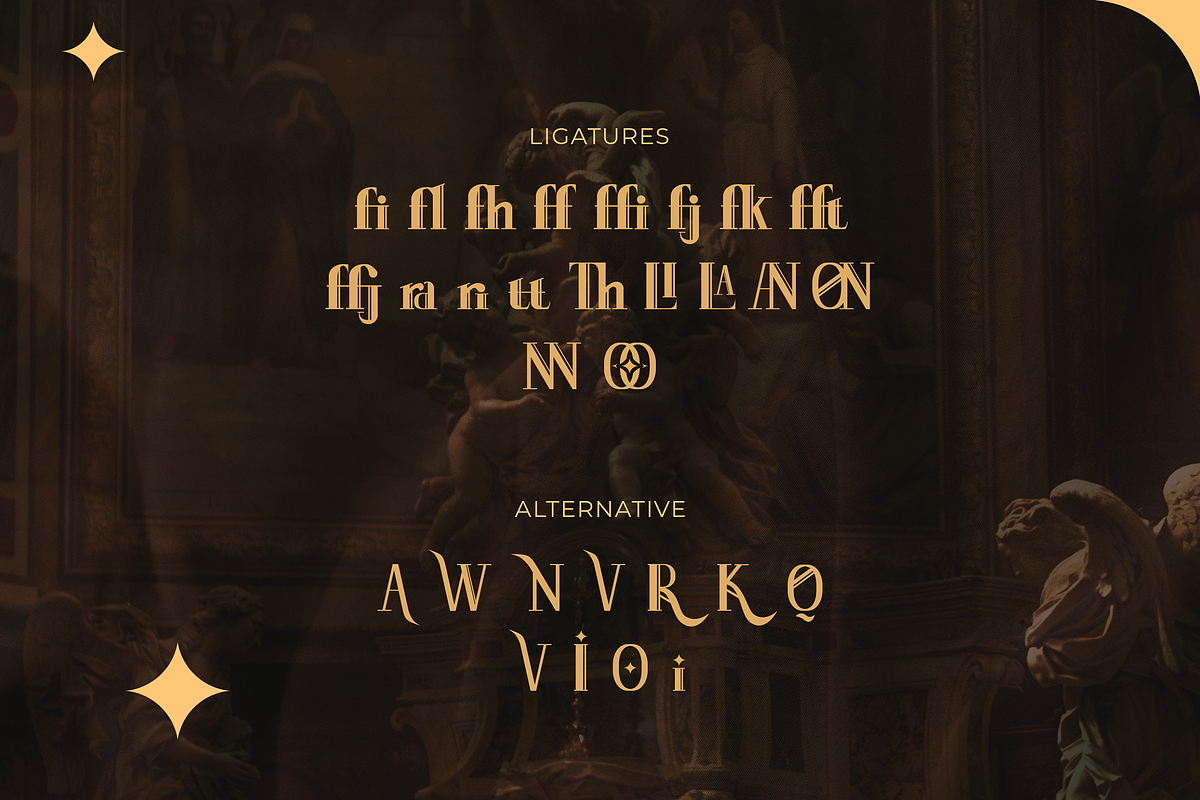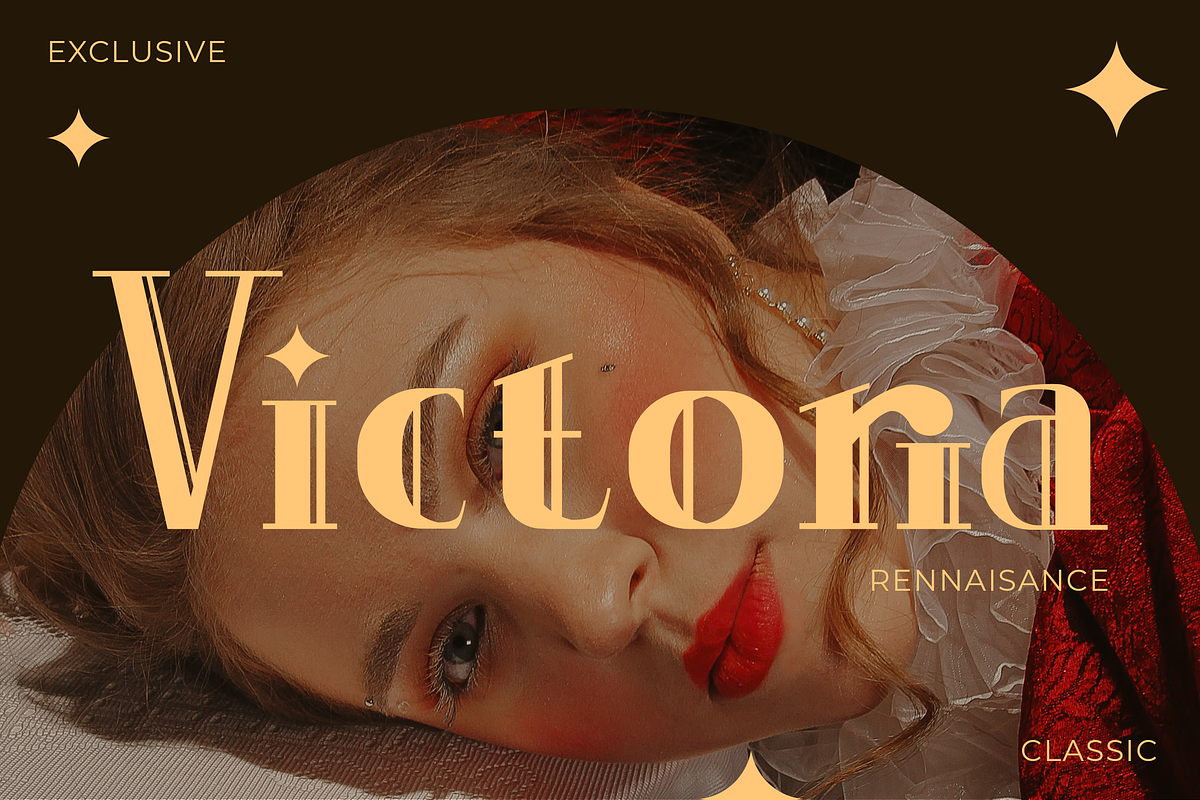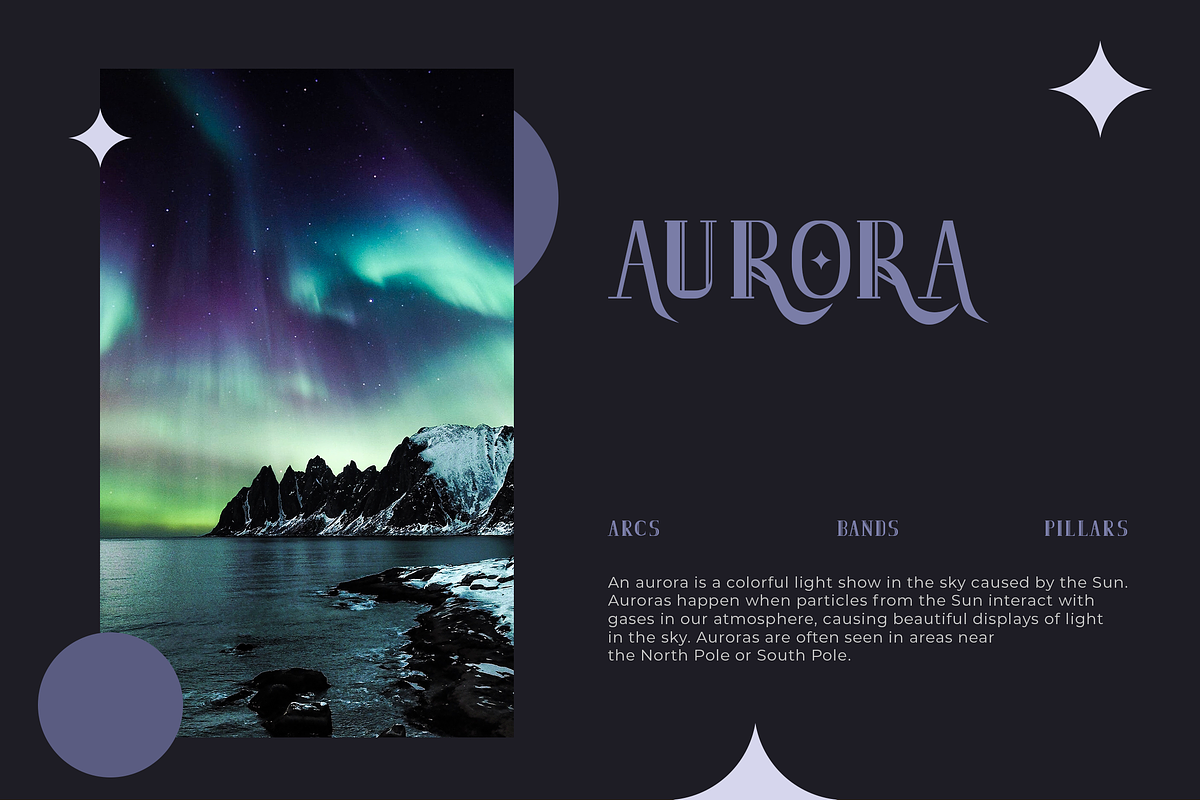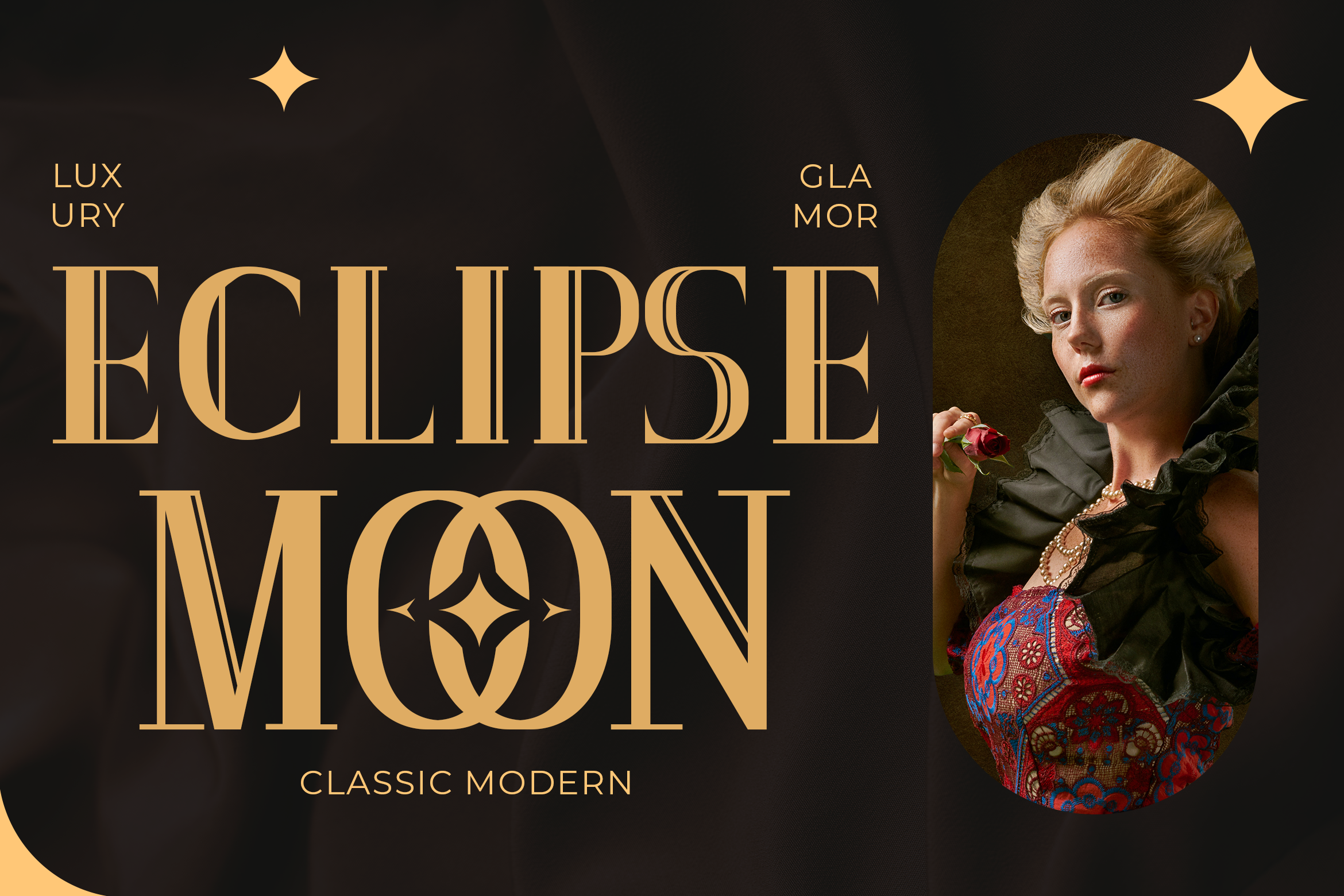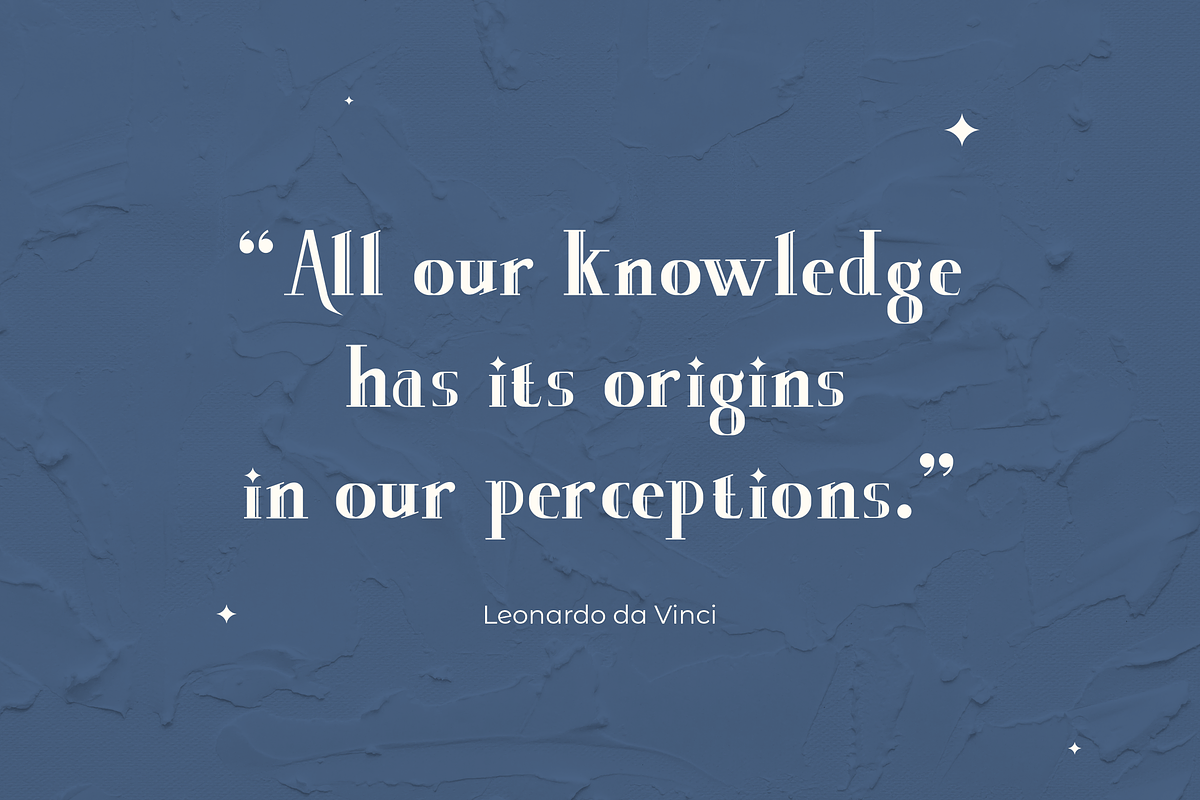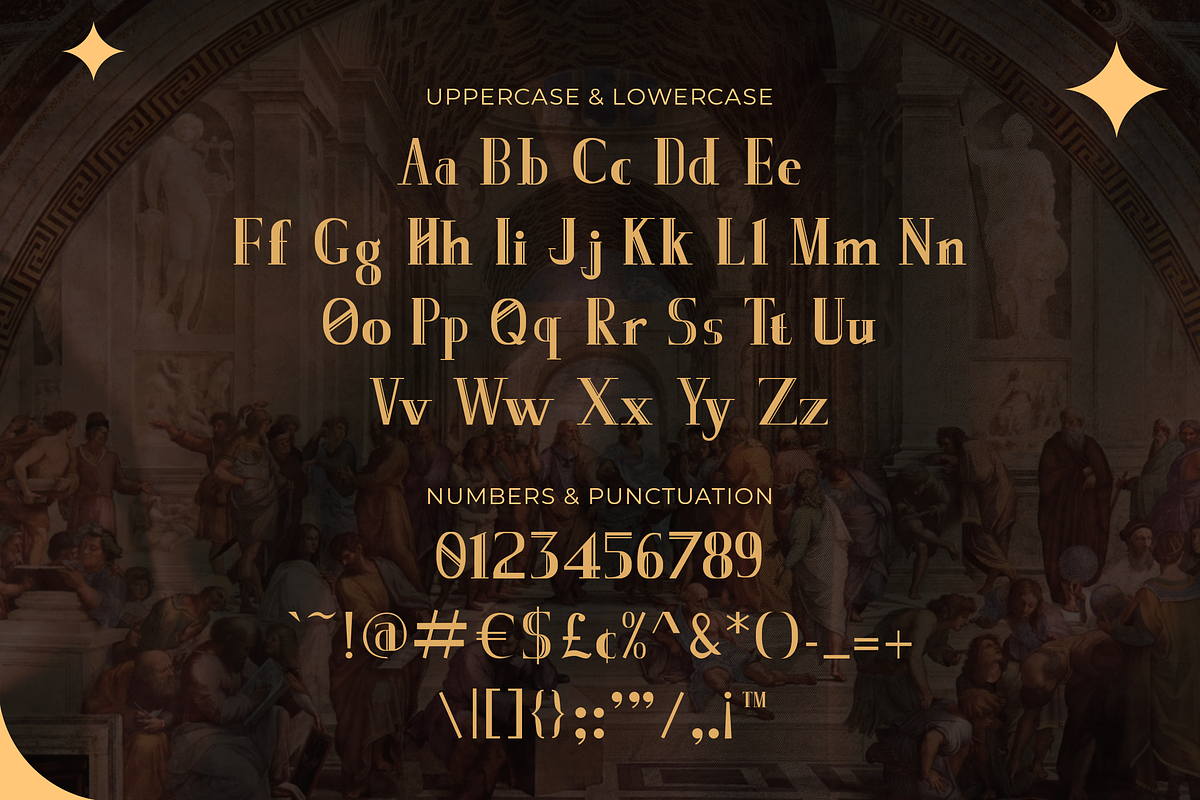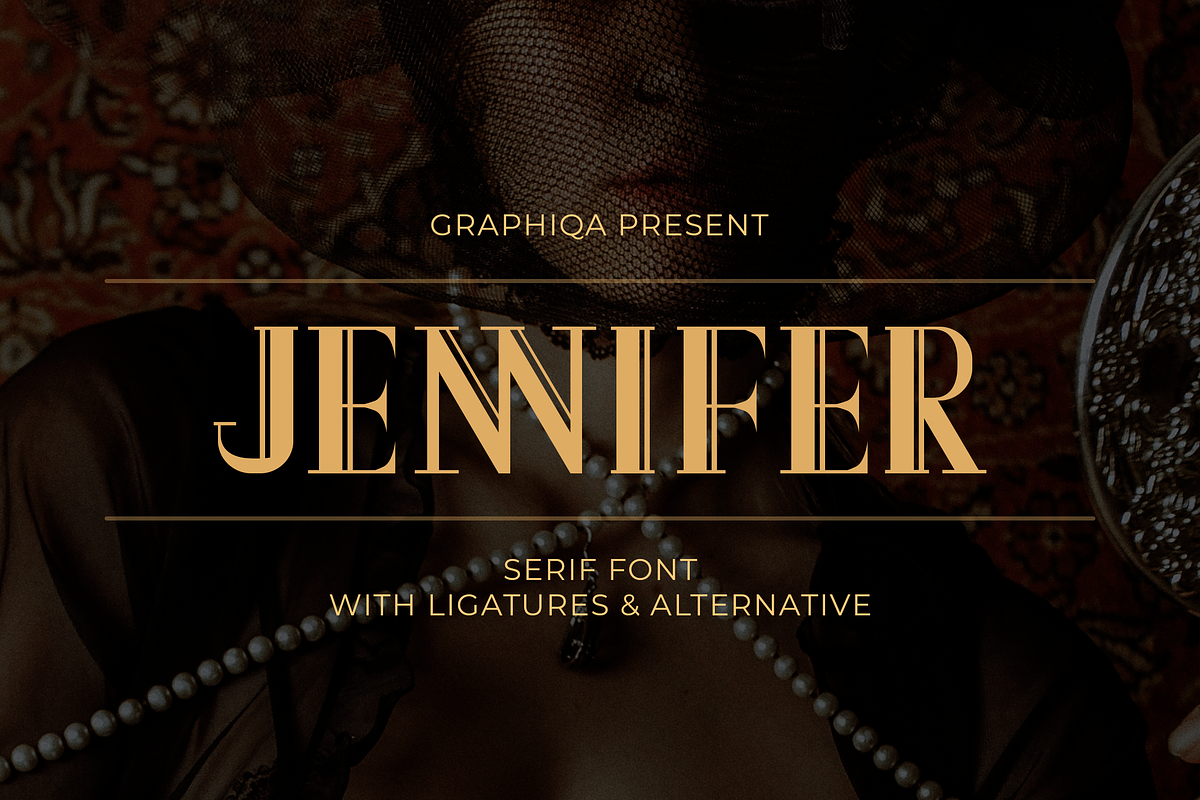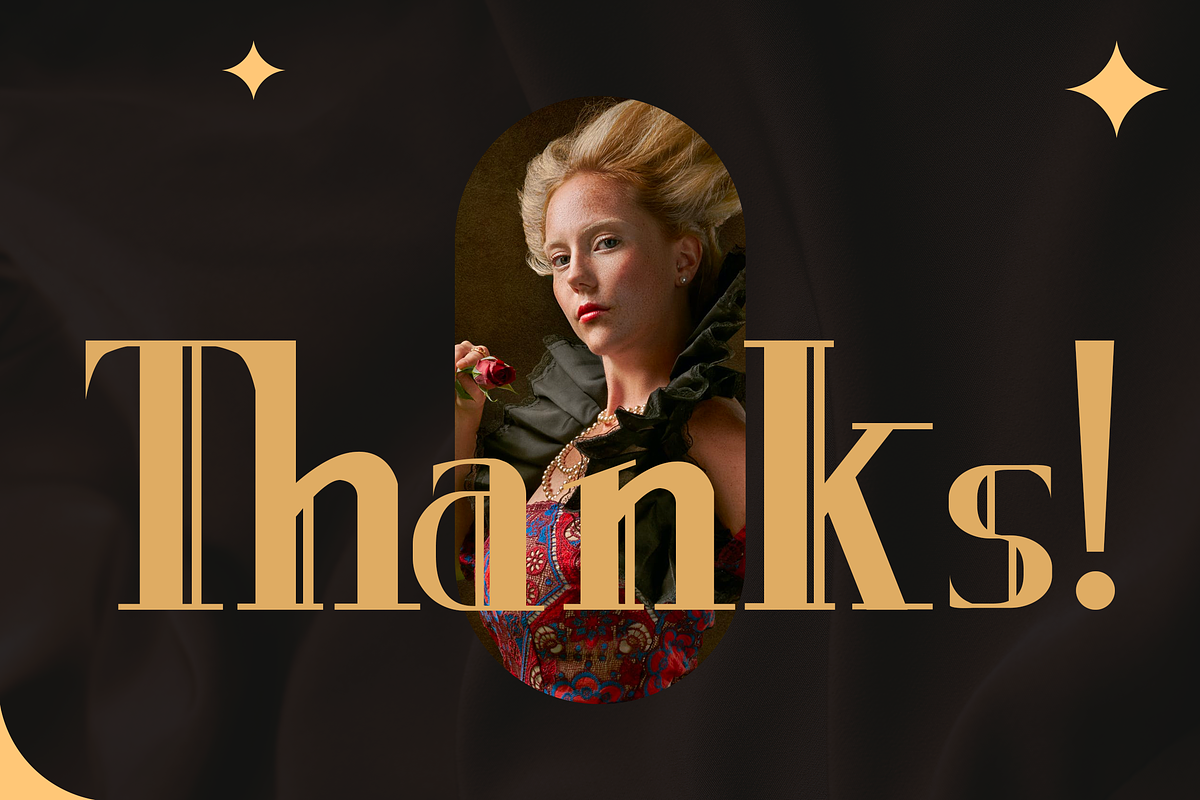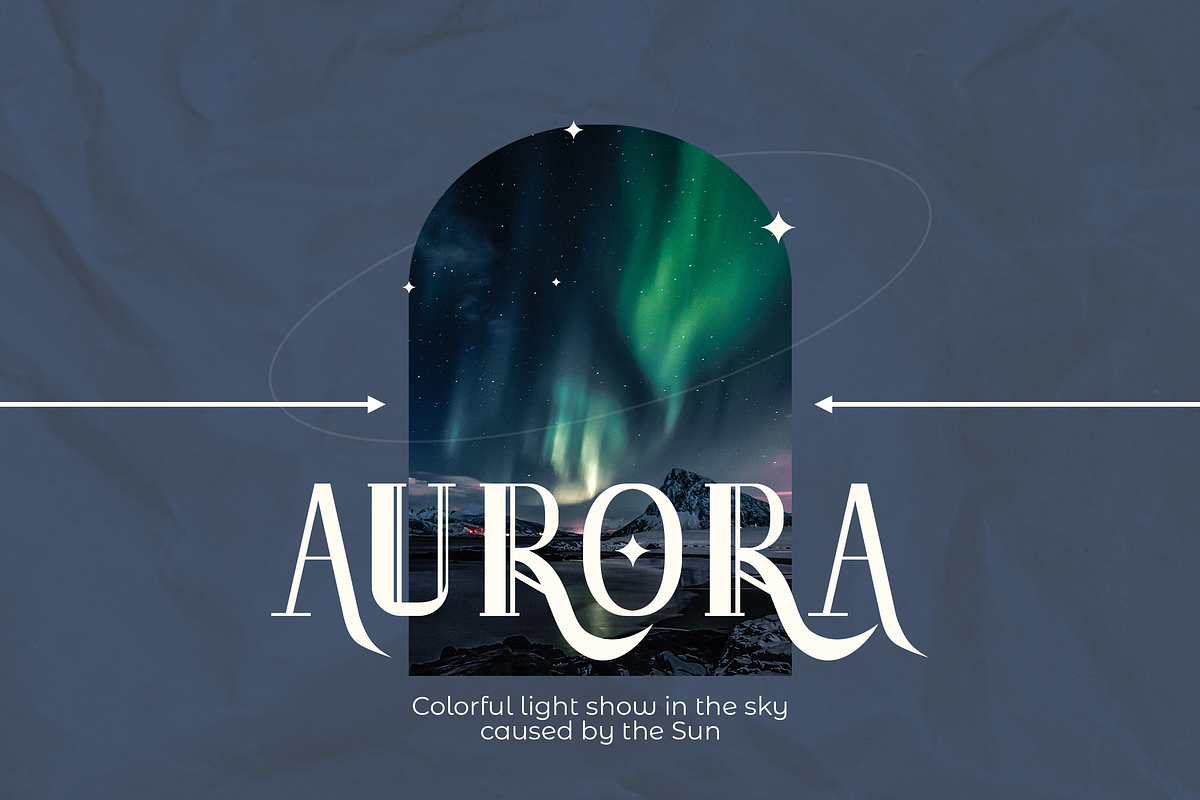
Eclipse Moon - Glamor Serif Font
Introducing Eclipse Moon, is a Glamor Serif Font has many purpose and suitable for luxury product, glamor activity, fashion event, deluxe items, classic modern, logotype, advertising and much more
- Available Ligatures and Alternates